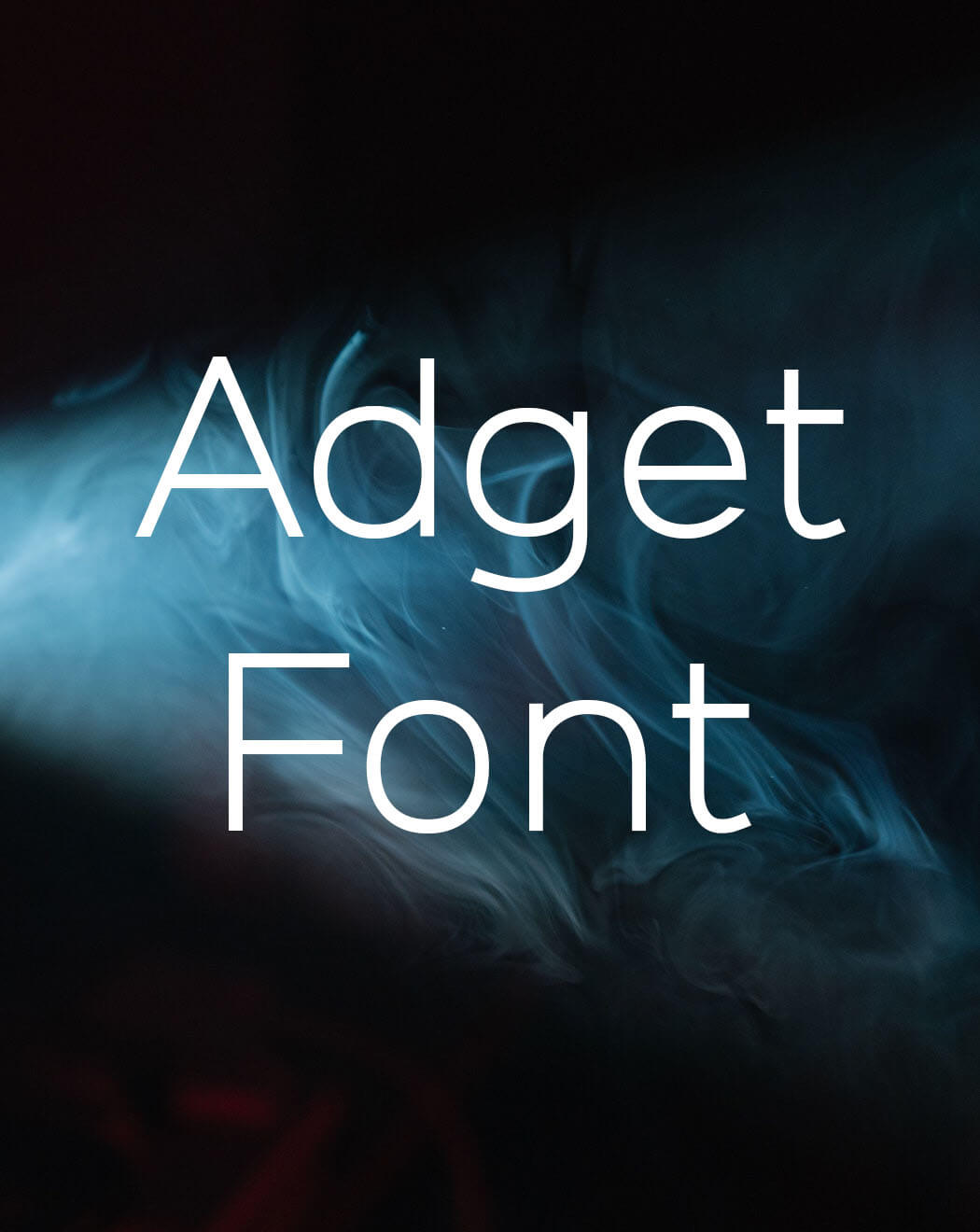
+23 Adget Sans Font Free Download Ideas. Web adget sans is not a free font. Pt sans is a type family of universal use.
Web adget sans, a modern, strong statement typeface with clean lines and big curves. The author works at company. Web adget font free download in this post, we have a sturdy sans serif typeface that is known as adget font inspired by the geometric grotesque.
Web adget sans, a modern, strong statement typeface with clean lines and big curves. Web adget sans, a modern, strong statement typeface with clean lines and big curves. The author works at company.
Web Adget Sans Font Family $50 | 4 X Ttf And Otf Adget Sans, A Modern, Strong Statement Typeface With Clean Lines And Big Curves.
Web The Adget Sans Bold Font Is A Great Choice To Increase The Prominence In Your Project.
$75.00 adget sans font family was designed by adam greasley and published by wearecolt. Web adget sans, a modern, strong statement typeface with clean lines and big curves. Social media, movie titles, books.